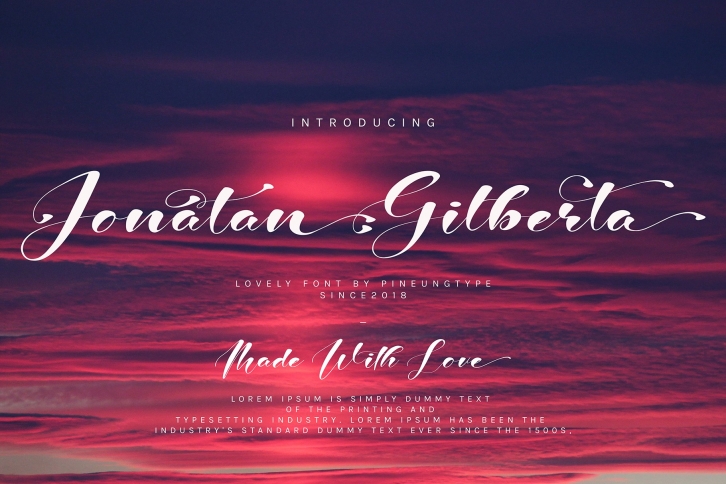
Jonatan Gilberta is a trendy and unique font with an authentic style. It was designed by Pineungtype and it's a great choice for creative people who need such a font. It was released on September 2, 2018 and the file size is 21.31 MB. Jonatan Gilberta will add an organic vibe to any design idea!